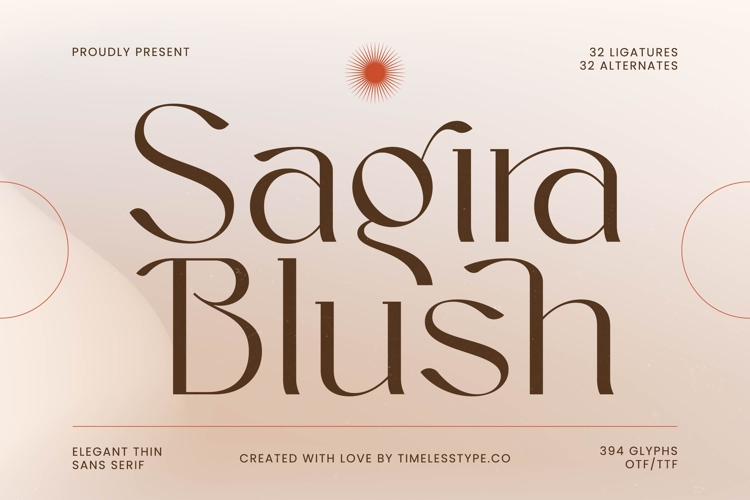
Sagira Blush - Elegant Thin Sans Serif Font
Elevate your designs with Sagira Blush - Elegant Thin Sans Serif Font, a typeface that embodies unparalleled elegance and modern sophistication. This exquisite font is meticulously crafted with delicate, thin strokes that command attention while maintaining a light, airy presence. Its refined aesthetic instantly communicates a sense of quality and exclusivity, making it an ideal choice for projects demanding a truly distinctive visual impact.
Discover a world of creative possibilities with Sagira Blush - Elegant Thin Sans Serif Font’s rich character set, featuring 32 ligatures and 32 alternates. These carefully designed stylistic enhancements allow for truly unique typographic compositions, enabling designers to add a personalized touch and artistic flair to every word. The subtle curves and graceful letterforms create a harmonious flow, perfect for establishing a sophisticated and memorable brand identity.
With its extensive multilingual support, Sagira Blush - Elegant Thin Sans Serif Font adapts seamlessly across global markets, making it incredibly versatile for international projects. This ensures your message resonates universally, preserving the font's inherent grace and readability across diverse languages and cultures. Its robust functionality underscores its value as a powerful tool for global communication.